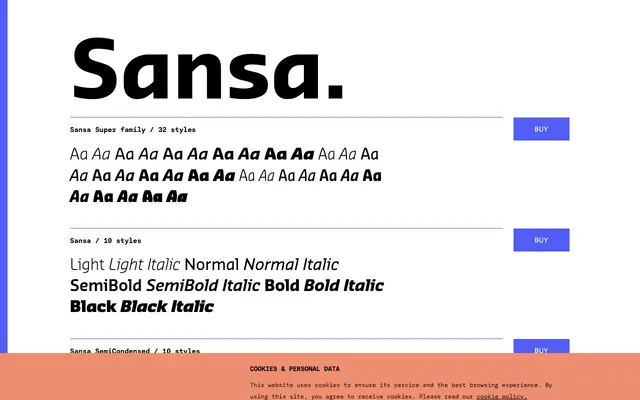
A 32-style superfamily spanning three widths and up to six weights, with full italic coverage and a broad OpenType feature set.
Sansa is structured across three subfamilies — standard, SemiCondensed and Condensed — each offering Light through Black weights with matching italics, and the Condensed cut extending to UltraBlack for headline use. The OpenType feature set is thorough, covering small capitals, oldstyle and tabular figures, fractions, stylistic alternates and more, making the family well-suited to both text and display work. The 32-style range gives it the coverage expected of a workhorse family for editorial or identity systems.
Sansa presents as a humanist sans-serif with a range of weights and widths typical of the genre; the family structure with Light through UltraBlack across standard, semi-condensed and condensed widths is consistent with contemporary text-and-display humanist sans families.